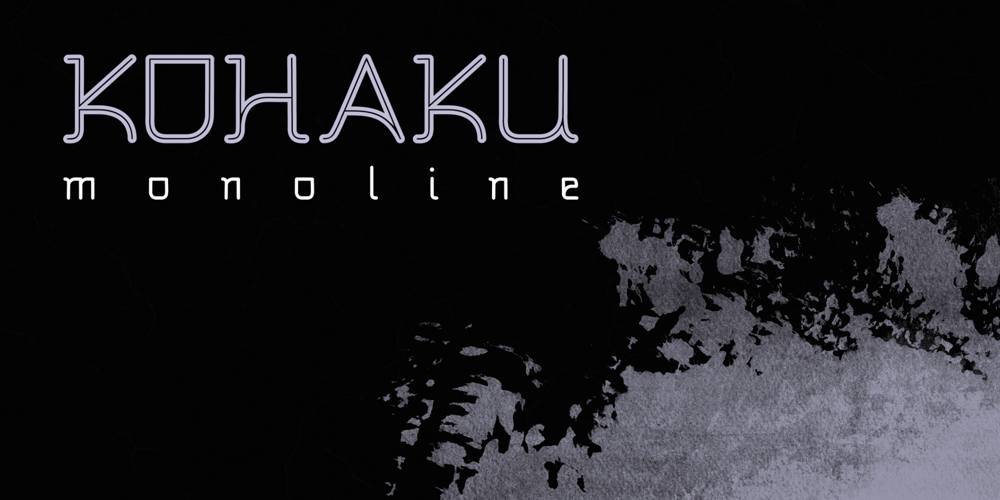
Kohaku Monoline Font Family was designed by Abdul Hayyi Mustofa and published by HayyType Foundry. Kohaku Monoline contains 1 styles and family package options. Kohaku Monoline! A Monoline font with a Japanese style. With thin strokes and an extraordinary curve, Kohaku Monoline is perfect for branding projects, cool text, product packaging – or simple style for your poster text.